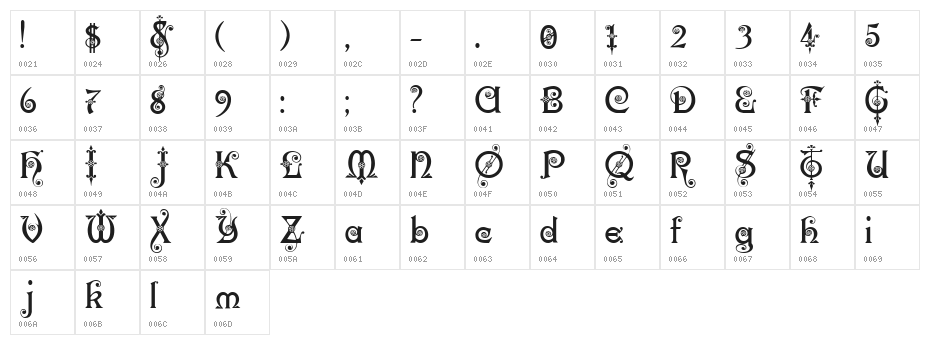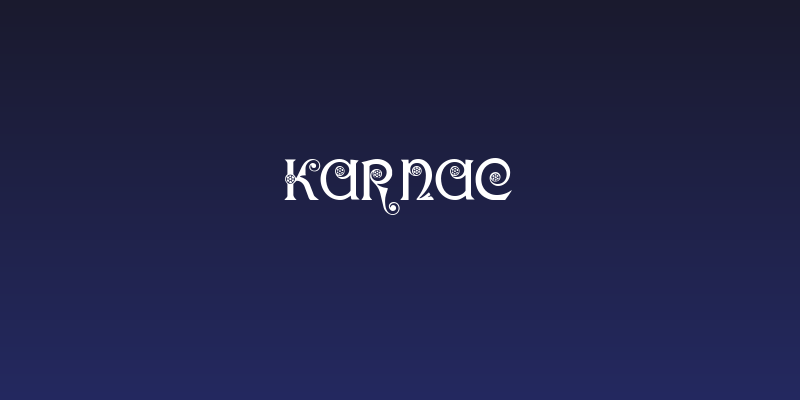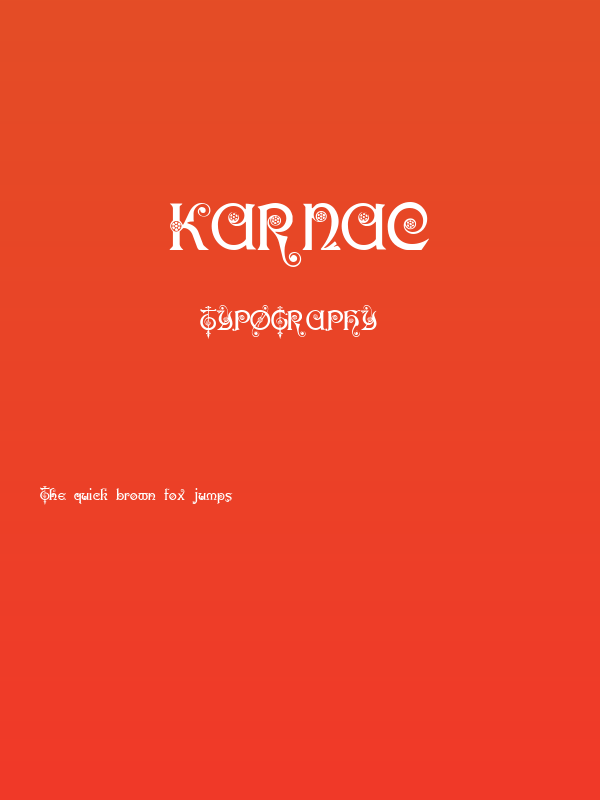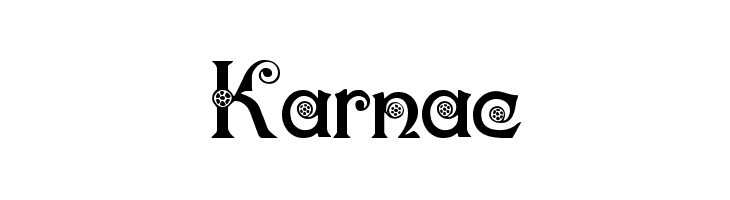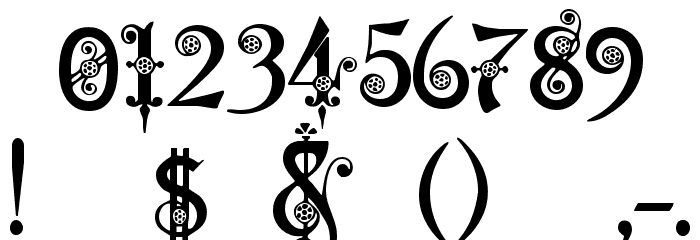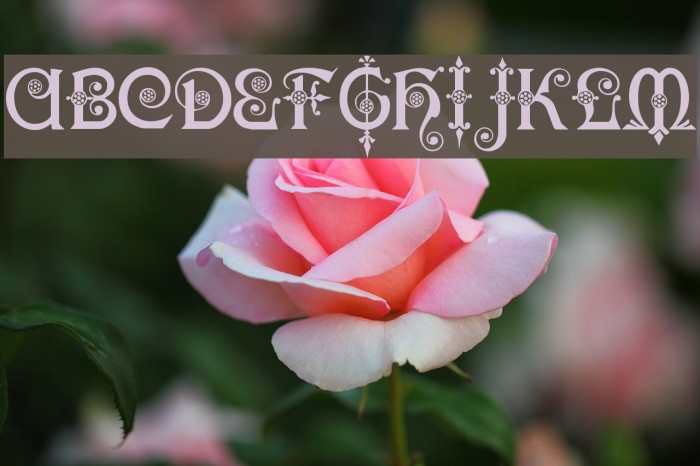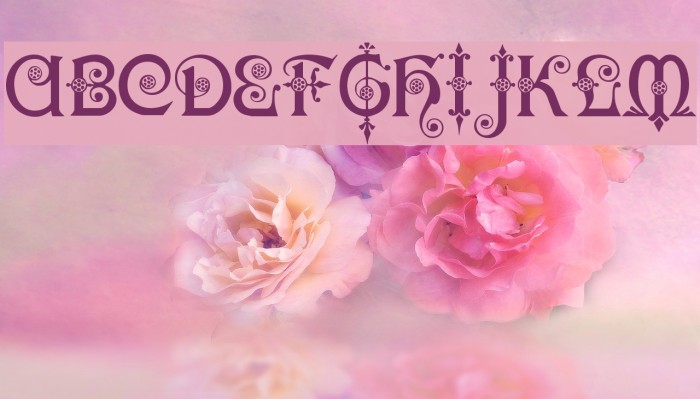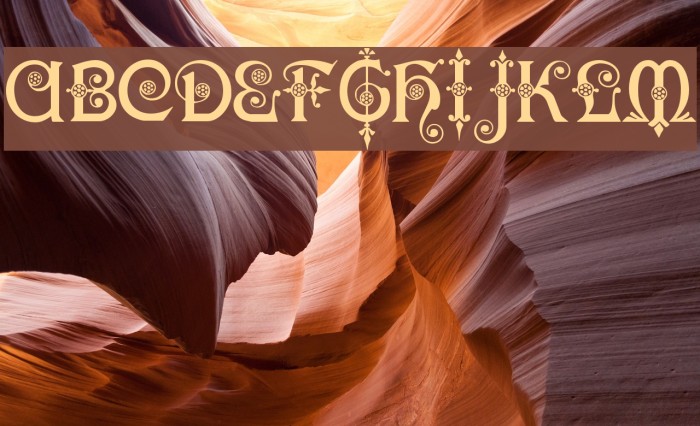
Karnac Font
Karnac Description
This font features an ornate and decorative style, characterized by intricate details and embellishments. Each character is adorned with unique flourishes and circular motifs, giving it a distinct and artistic appearance. The uppercase letters are particularly elaborate, with additional decorative elements that enhance their visual appeal. The lowercase letters maintain a similar style, though slightly more subdued. The numerals and special characters also carry the same decorative theme, ensuring consistency throughout the typeface. This font is ideal for projects that require a touch of elegance and sophistication, making it suitable for invitations, posters, and other creative designs.
| Use Case | Headlines, Logos, Decorative text |
| Proposed Projects | Ideal for invitations, posters, branding, and creative designs requiring elegance. |